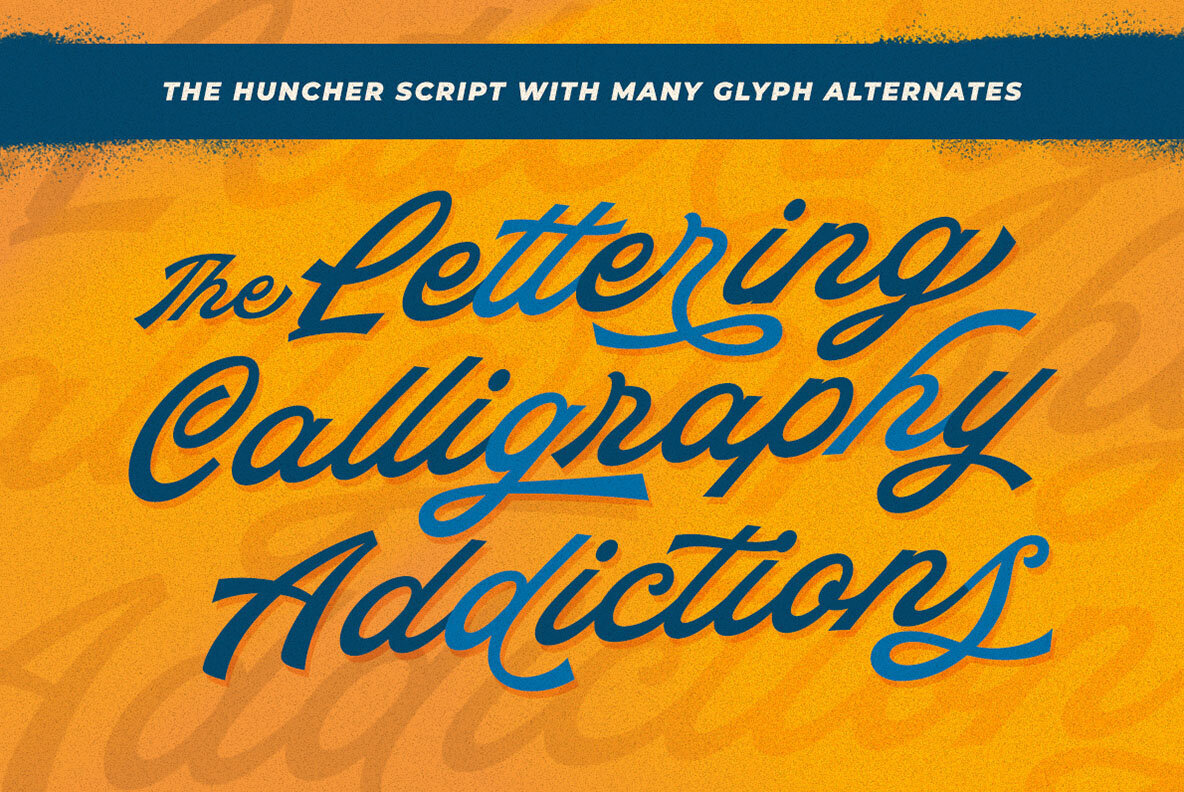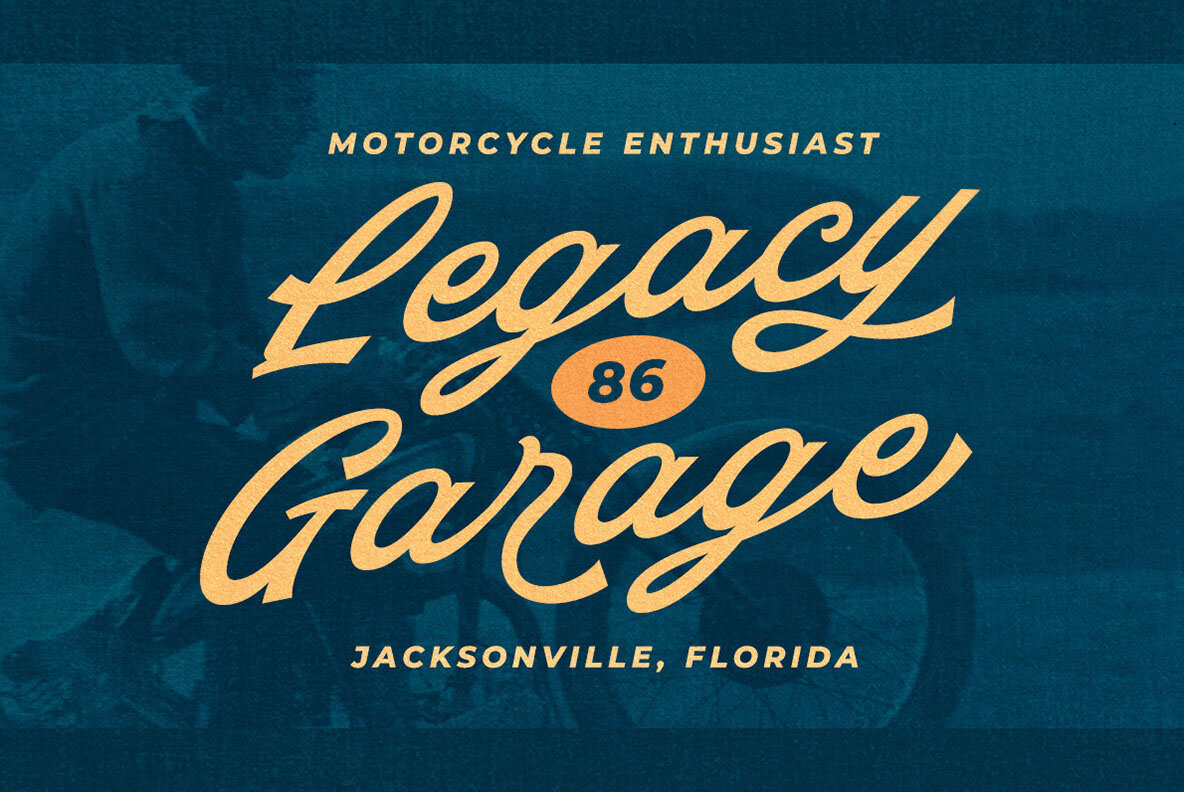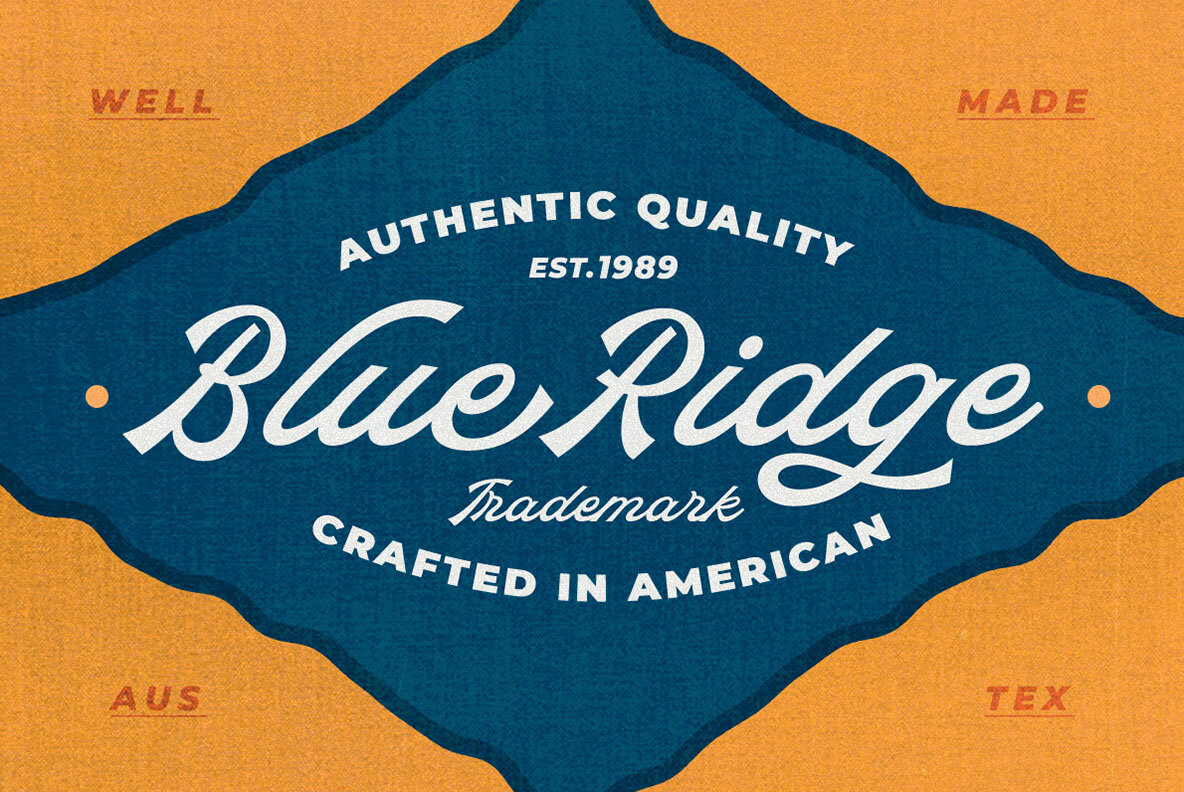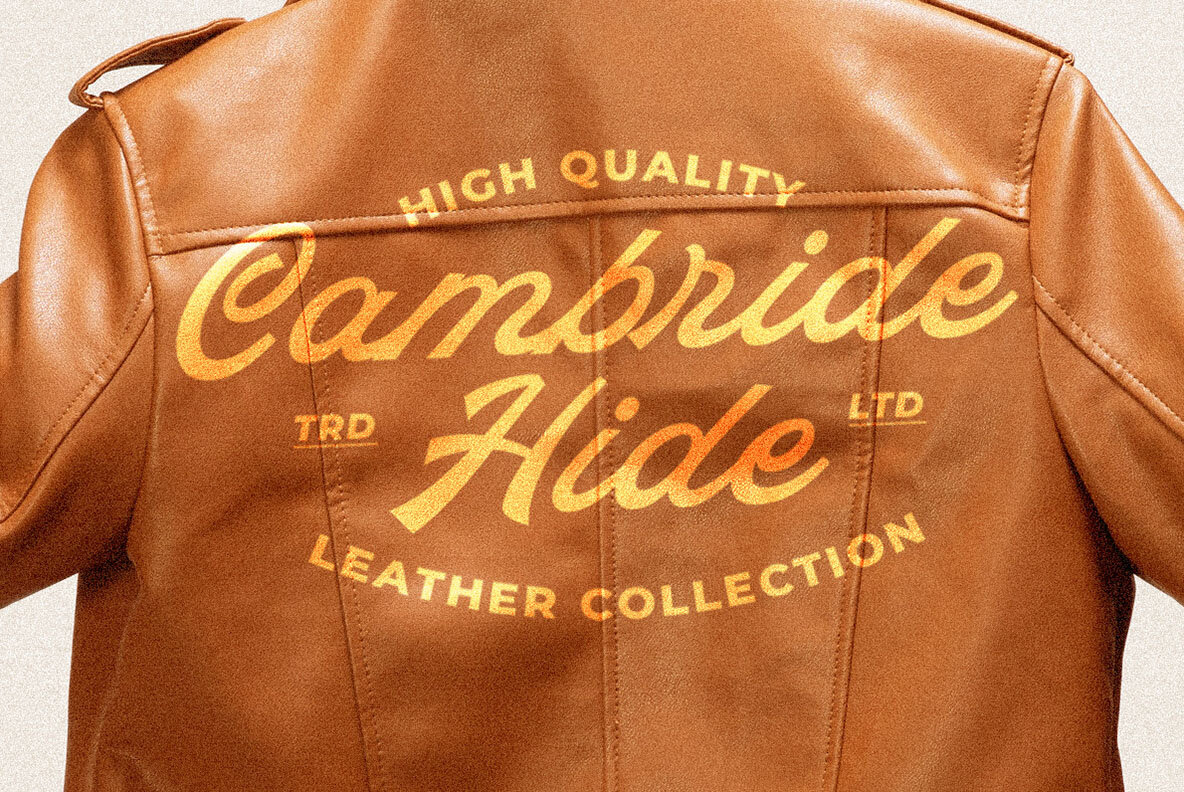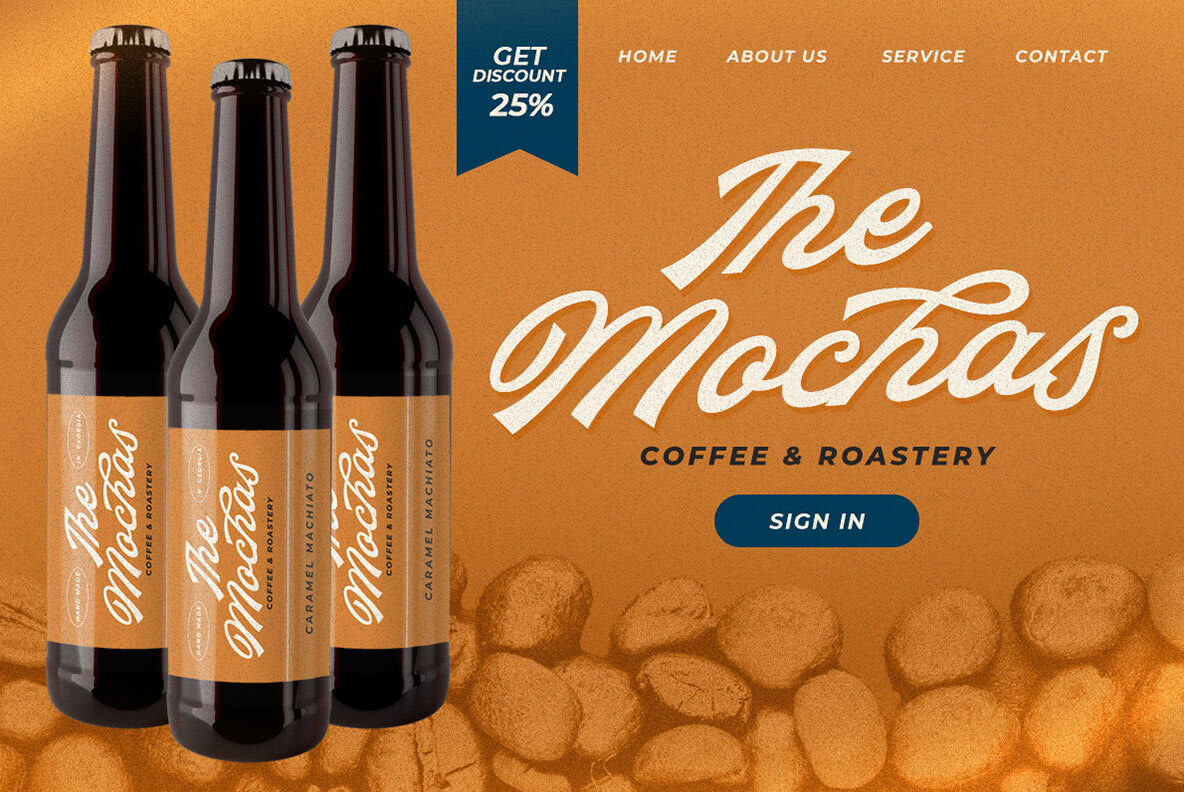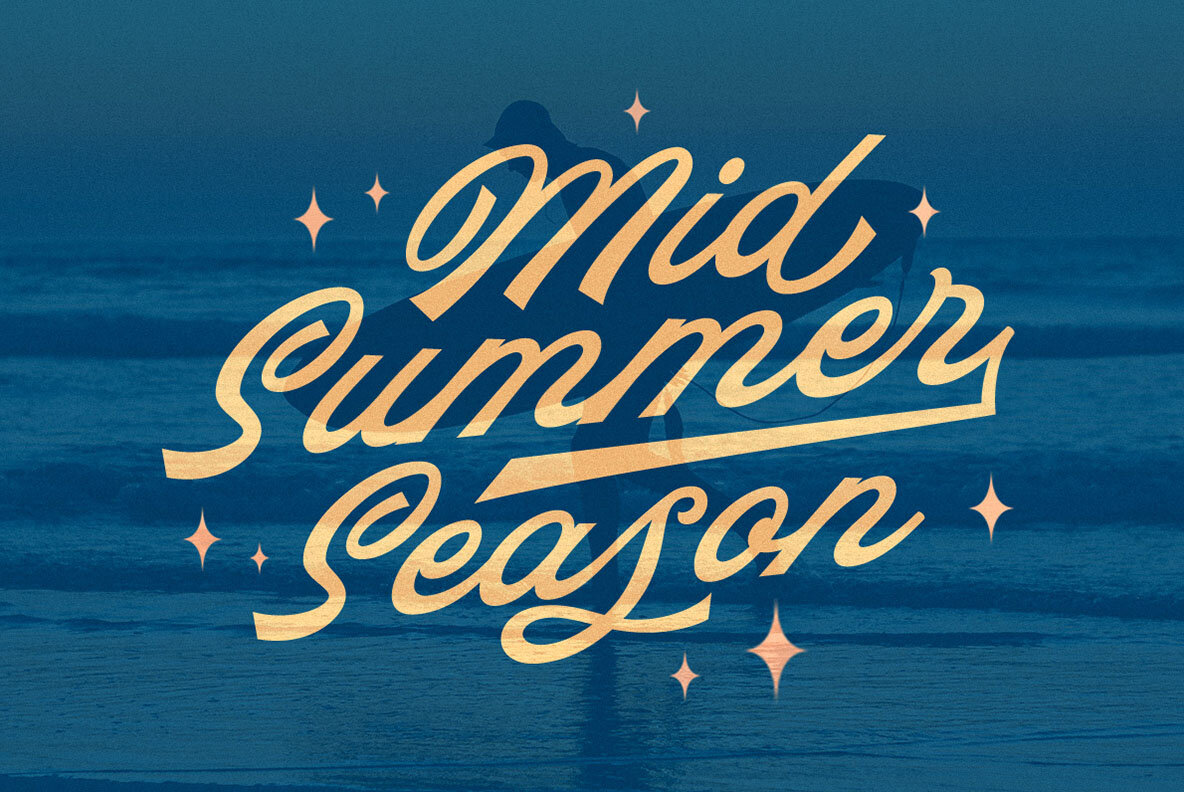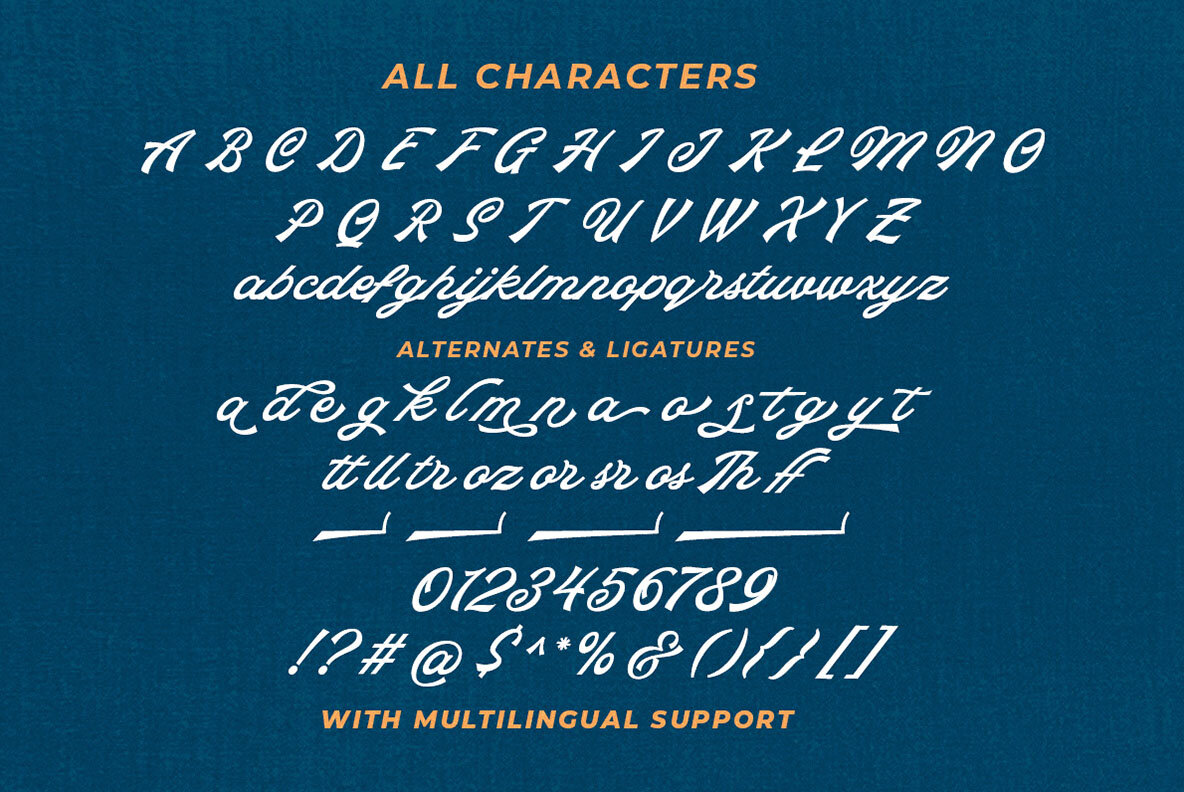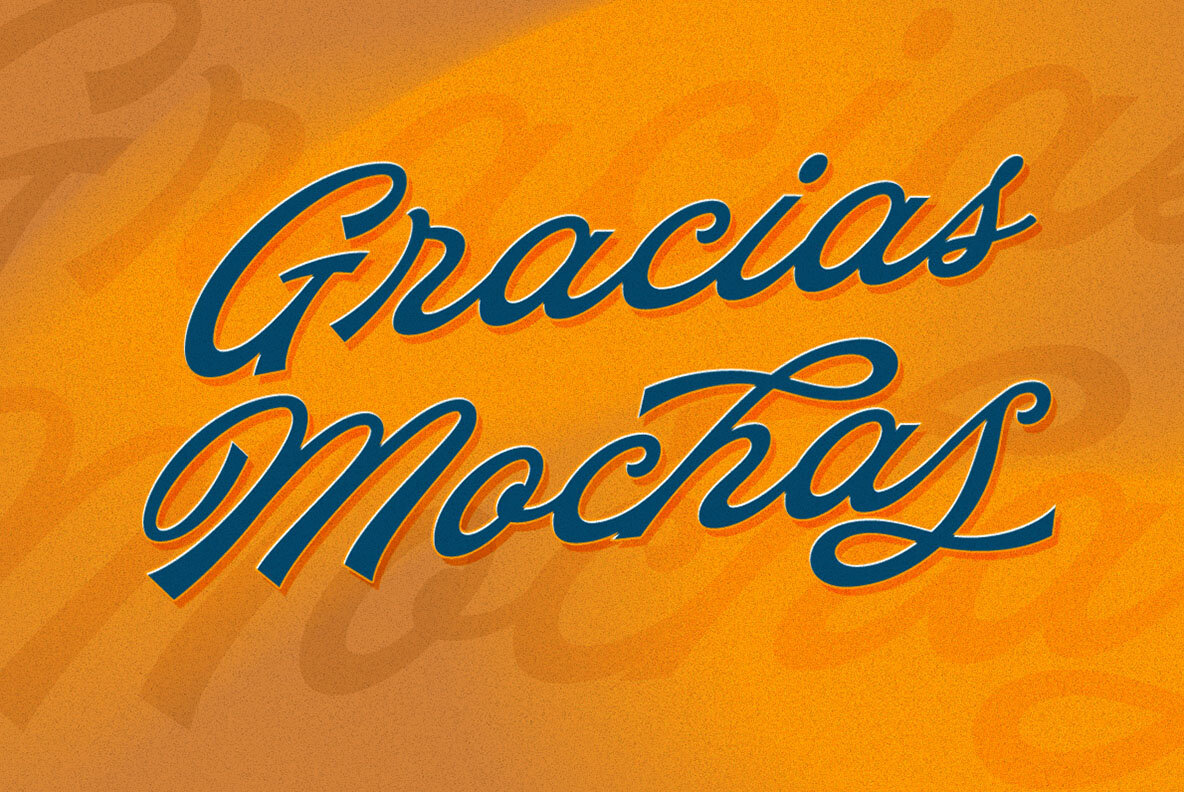
The Huncher Font
The Huncher Regular
The Huncher Script is a brand new display script font. You can play around with alternates character. This font perfectly made to be applied especially in logo, and the other various formal forms such as invitations, labels, logos, magazines, books, greeting / wedding cards, packaging, fashion, make up, stationery, novels, labels or any type of advertising purpose. Features : We highly recommend using a program that supports OpenType features and Glyphs panels like many of Adobe apps and Corel Draw, so you can see and access all Glyph variations.